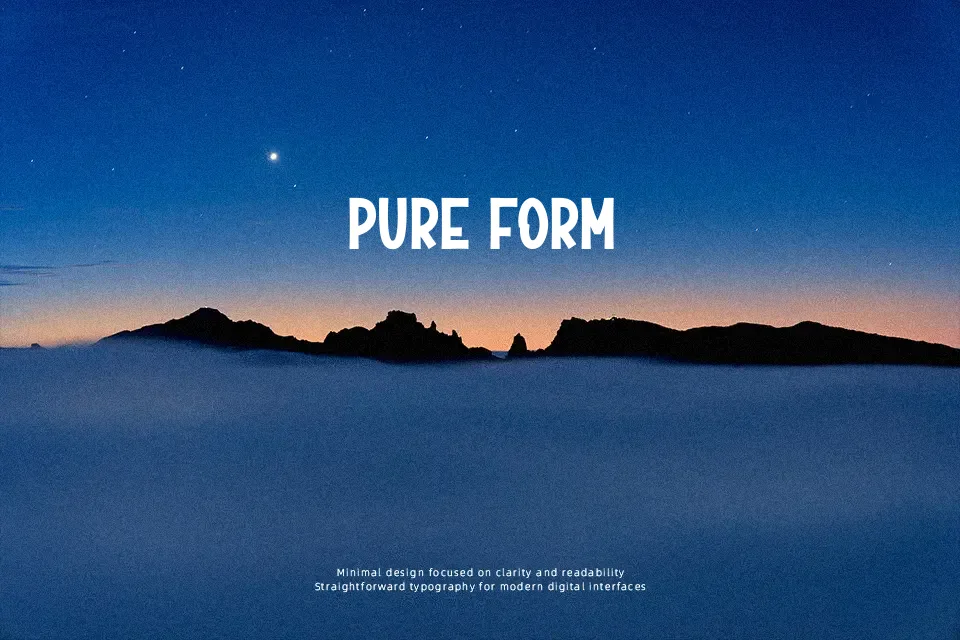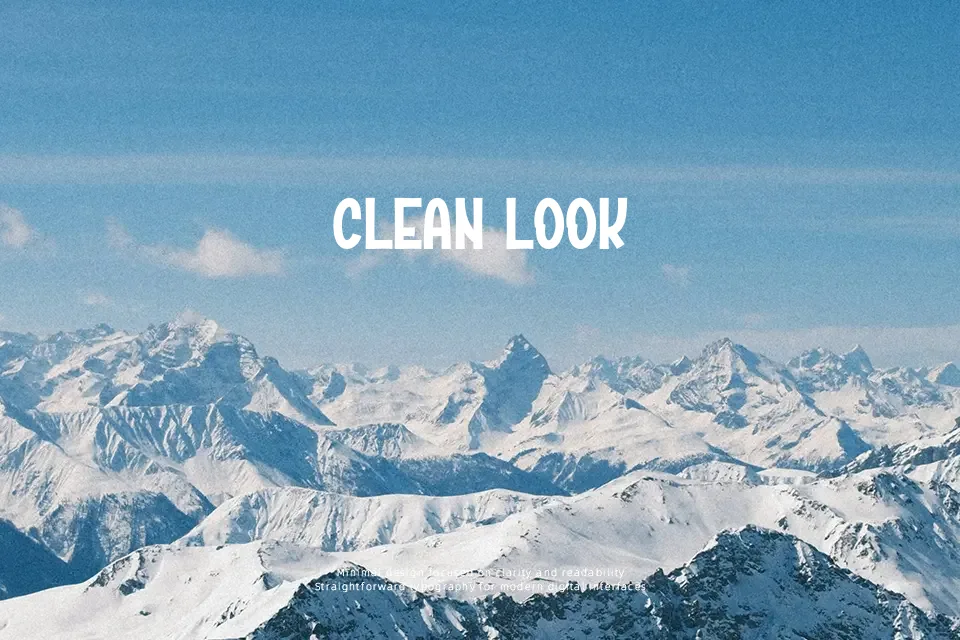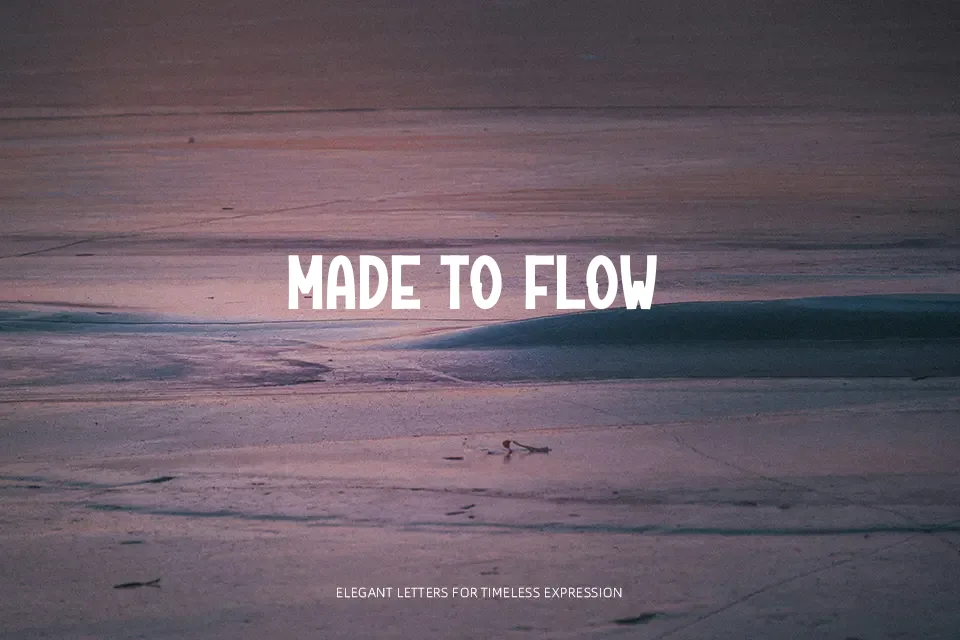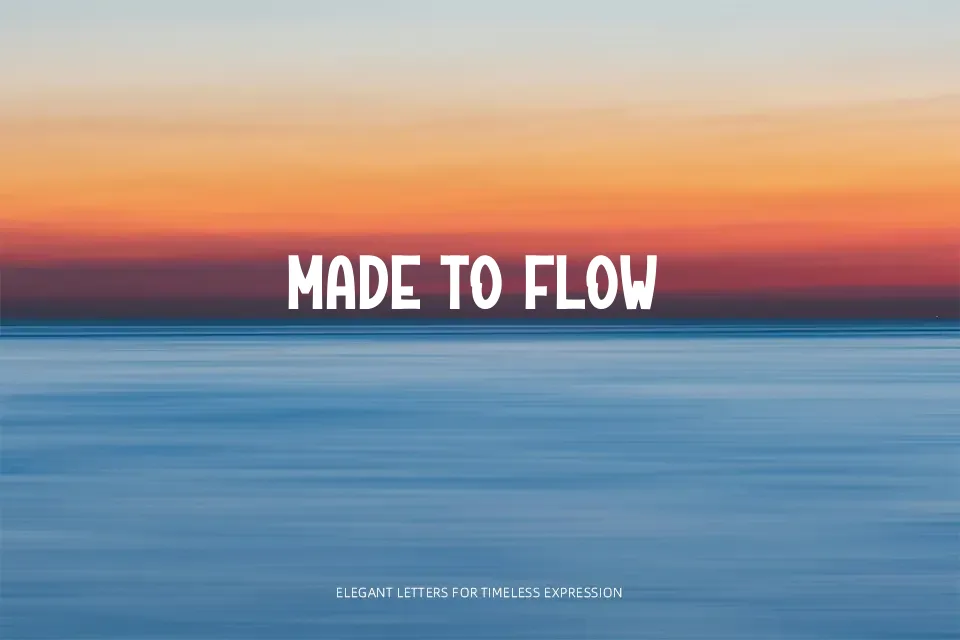
Starnight Font
Starnight Font establishes an energetic handwritten structure built with loose fluid strokes, moderate weight contrast, and gently flared terminals. The letterforms maintain consistent vertical proportions alongside an undulating baseline that reinforces a lighthearted visual tempo across both uppercase and lowercase character sets. Balanced tracking and proportional spacing help sustain clarity across large display scales, making the design particularly effective for amusement park signage, festival graphics, and juvenile merchandise labels. However, the decorative flourishes and organic loops reduce comfort during continuous reading, meaning the typeface is poorly suited for dense editorial text or small interface labels.
Best For: children’s book titles, festive party stationery, juvenile merchandise labels, amusement park signage
Not Ideal For: dense editorial paragraphs, corporate financial reports, compact mobile interface text, technical documentation
Perfect for headline, kids, and packaging, with a creative and cartoon style.